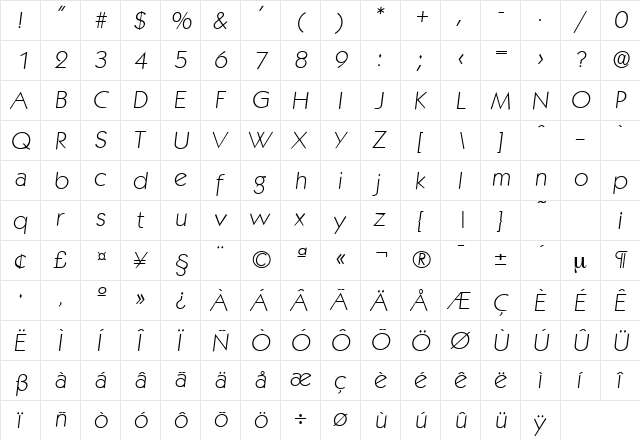
Design Context for Koblenz-Serial-ExtraLight Typeface
Koblenz-Serial-ExtraLight takes a measured approach to typography — its balanced proportions and neutral character make it a reliable workhorse for both digital and print work. The dynamic lean of this cut emphasises speed and emphasis in any layout. The delicate stroke weight brings airiness and refinement to layouts.